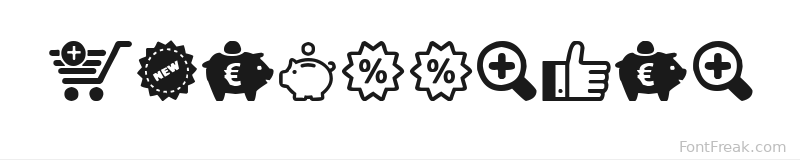
E-commerce
Introducing the E-commerce font by woodcutter Manero, a unique typeface designed to meet the needs of modern digital commerce. This font falls into the display category, characterized by its bold and eye-catching design, making it perfect for various applications in the e-commerce sector. The E-commerce font features a striking stroke weight that balances strength with approachability, ensuring that it stands out while maintaining readability. The design incorporates playful decorative elements, such as shopping-related icons, which add a thematic touch that resonates with online retail.
The E-commerce font is ideally suited for a range of specific use cases. It can be effectively utilized in online store logos, making brand identities memorable. Additionally, its playful nature makes it a great choice for promotional banners and advertisements designed to attract attention to special sales or discounts. The font can also enhance product packaging, giving an engaging and modern twist to consumer goods. Furthermore, it works well in social media graphics, helping content creators captivate their audience with visually appealing text.
What sets the E-commerce font apart is its ability to blend functionality with style, creating a distinctive character that resonates with the essence of online shopping. With its strong visual appeal and thematic relevance, this font is not just a typeface; it’s a branding tool that enhances the overall shopping experience. Don’t miss the opportunity to elevate your designs with this unique typeface—consider the E-commerce font free download today.